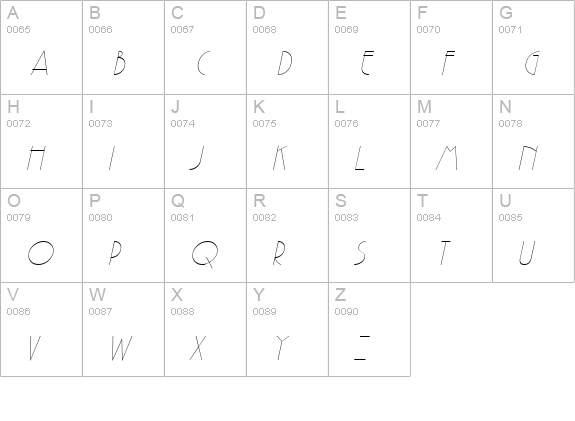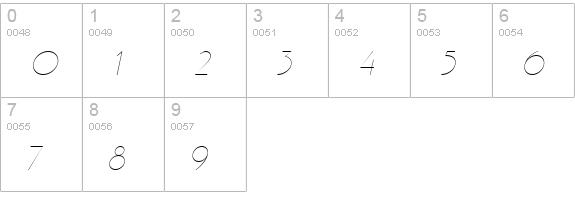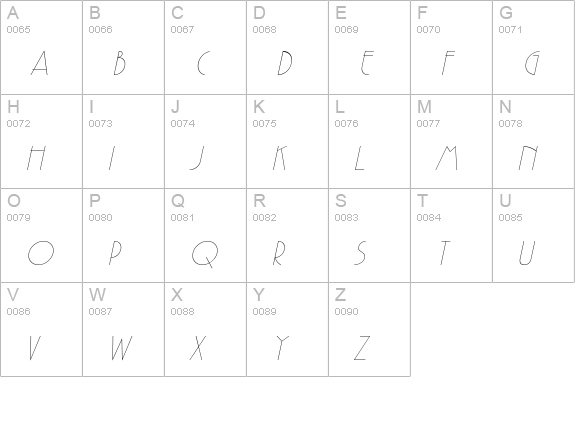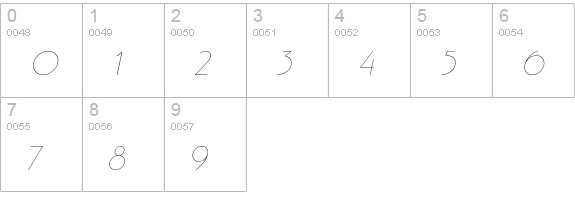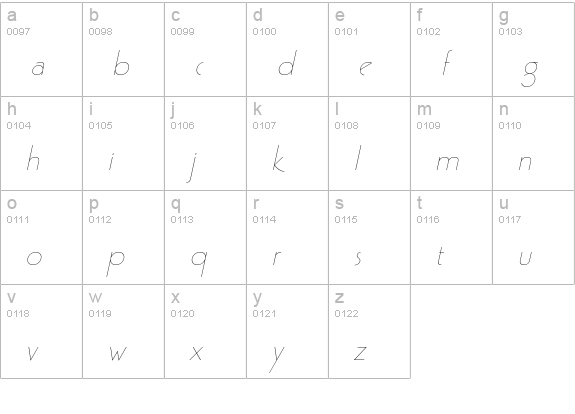
Gaston Wide Italic is a distinctive, extended-width, italic variant in the Gaston typeface family \xE2\x80\x94 well suited to design and typography projects.
Introducing Gaston Wide Italic font - a sleek and sophisticated typeface designed to bring a touch of elegance to your projects. Its slender and italicized design exudes a sense of modernity and refinement, making it the perfect choice for adding a stylish flair to your designs. Gaston Wide Italic font is versatile and eye-catching, making it ideal for a wide range of applications including branding, advertising, packaging, and more. Its clean lines and distinct letterforms make it easy to read while still maintaining a sense of sophistication and style. Best of all, Gaston Wide Italic font is available for free download at FontsMarket.com. This means you can access this stunning typeface without any cost, allowing you to elevate your designs without breaking the bank. Don't miss out on the opportunity to enhance your projects with the timeless beauty of Gaston Wide Italic font - download it today and see the difference it can make!